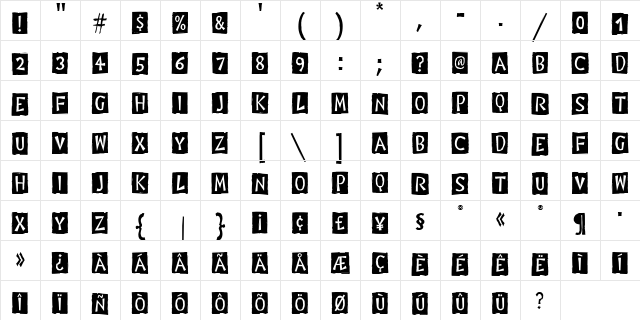
DigiWdctBlk ITC Black
Design Context for DigiWdctBlk ITC
DigiWdctBlk ITC is a composed and adaptable typeface that performs quietly and consistently across a wide range of design contexts.